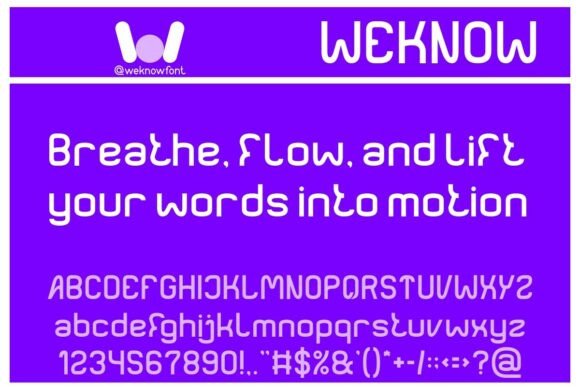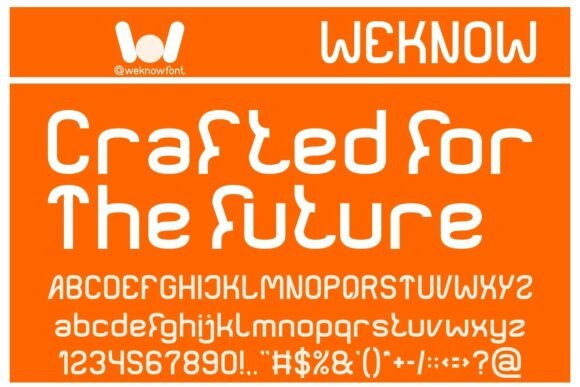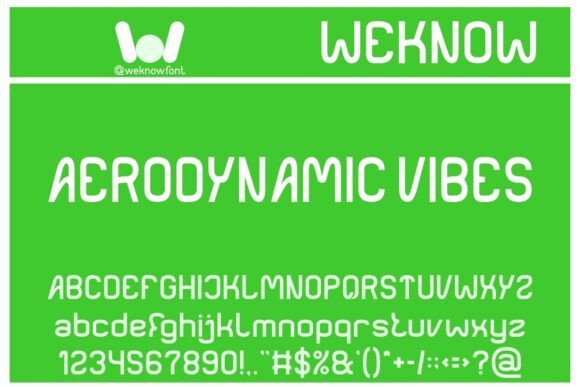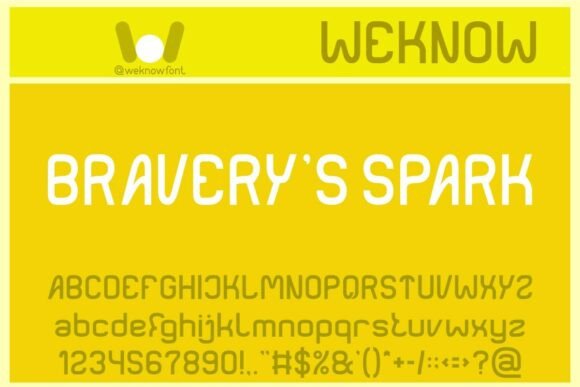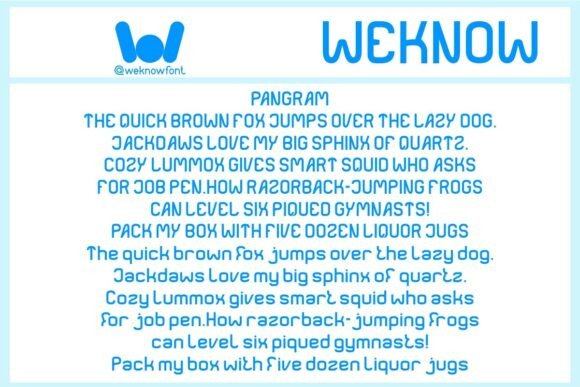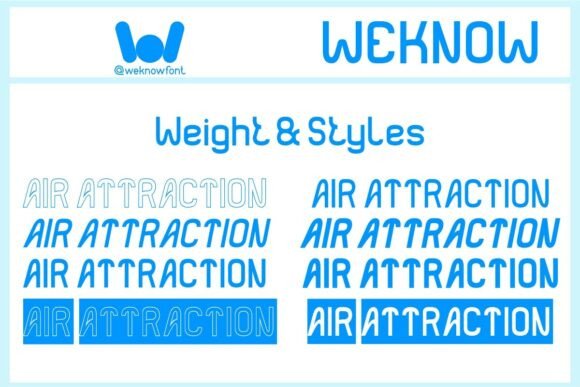
Introducing Air Attraction Font: The Ultimate Game-Changer for Designers and Crafters
Are you tired of using the same old fonts that fail to capture the attention of your audience? Look no further than Air Attraction Font, a revolutionary typeface that seamlessly weaves the modern, the geometric, and the quirky into one mesmerizing display. This font is designed to bring a distinct flair to your creative palette, making it perfect for designers and crafters looking to elevate their projects.
The Unique Features of Air Attraction Font
Air Attraction Font boasts a range of unique features that set it apart from other fonts on the market. Its rounded corners and techno-futuristic aesthetic give it a fresh, experimental edge that’s sure to turn heads. The font’s geometric design ensures that it’s both visually appealing and highly legible, making it perfect for use in a variety of applications.
Whether you’re dressing up a headline, crafting the perfect logo, or formulating a corporate identity, Air Attraction Font is the perfect choice. Its versatility makes it suitable for use in a wide range of industries, including:
- Apparel: Add a fresh, experimental edge to your clothing and accessory designs with Air Attraction Font.
- Music: Use Air Attraction Font to create eye-catching music covers and promotional materials.
- Film and Television: Add a touch of sophistication to your movie posters and title sequences.
- Gaming: Create engaging and immersive gaming interfaces with Air Attraction Font.
- Reading Materials: Use Air Attraction Font to add a touch of personality to your magazines, books, and comic strips.
Elevate Your Digital Projects
In today’s digital age, it’s more important than ever to stand out from the crowd. Air Attraction Font can help you do just that. Whether you’re creating content for YouTube, Instagram, or your personalized website, this font is sure to capture the attention of your audience. Its bold, captivating design makes it perfect for use in:
- Social Media Graphics: Create eye-catching social media graphics that showcase your brand’s personality.
- Website Headers: Use Air Attraction Font to create bold, attention-grabbing website headers.
- YouTube Thumbnails: Create thumbnails that stand out from the crowd and grab the attention of potential viewers.
The Magnetism of Air Attraction Font
So what sets Air Attraction Font apart from other fonts on the market? The answer lies in its unique magnetism. This font has a certain charm that is sure to capture the attention of your audience and leave a lasting impression. Whether you’re looking to define your brand or simply add a touch of personality to your designs, Air Attraction Font is the perfect choice.
Get Ready to Experience Font in a Whole New Way
Key Benefits of Air Attraction Font
- Unique and eye-catching design
- Rounded corners and techno-futuristic aesthetic
- Highly legible and visually appealing
- Perfect for a wide range of applications
- Versatile and adaptable
- Magnetism that captures the attention of your audience
In conclusion, Air Attraction Font is a game-changer for designers and crafters looking to elevate their projects. Its unique design, versatility, and magnetism make it the perfect choice for a wide range of applications. Whether you’re looking to define your brand or simply add a touch of personality to your designs, Air Attraction Font is the perfect choice. So why wait? Try Air Attraction Font today and discover a whole new world of creative possibilities.